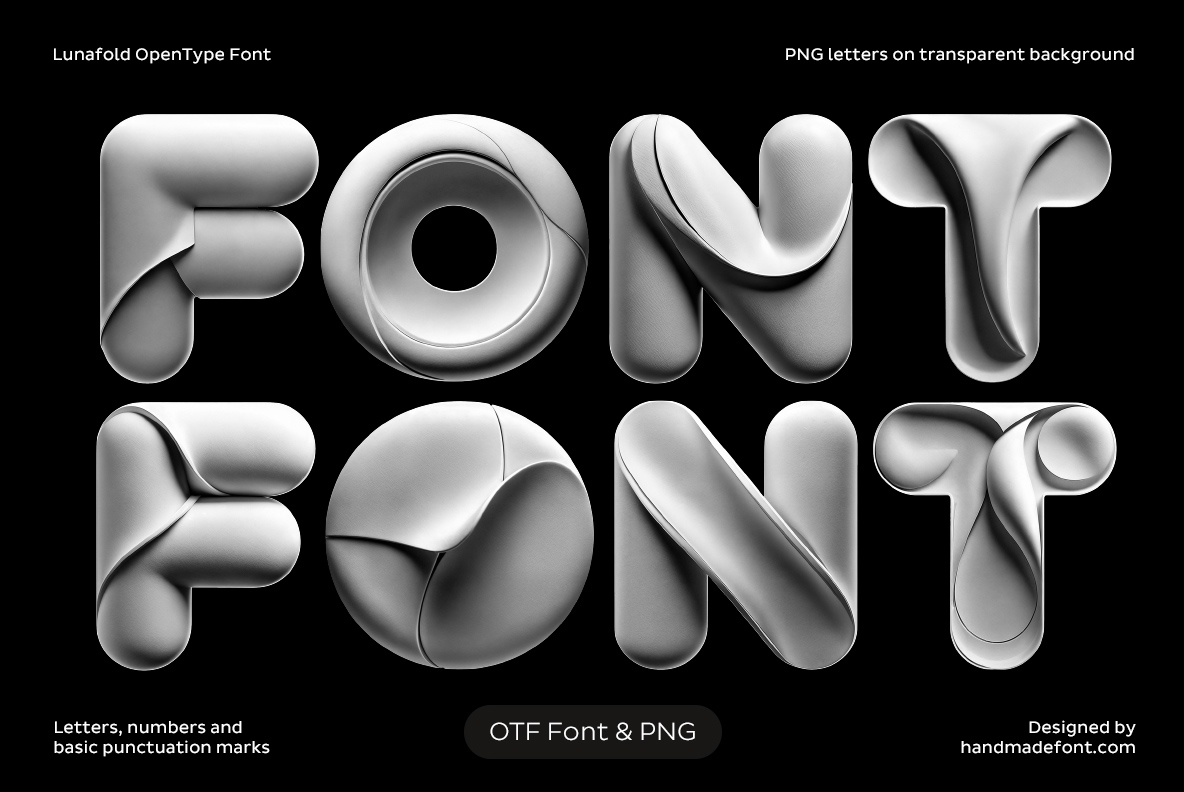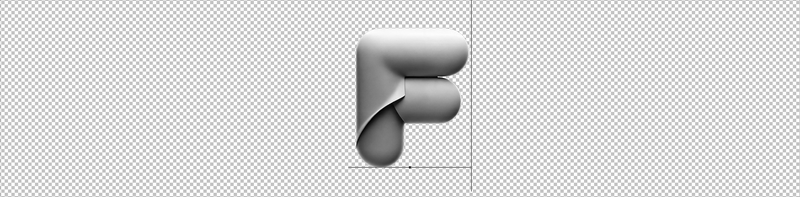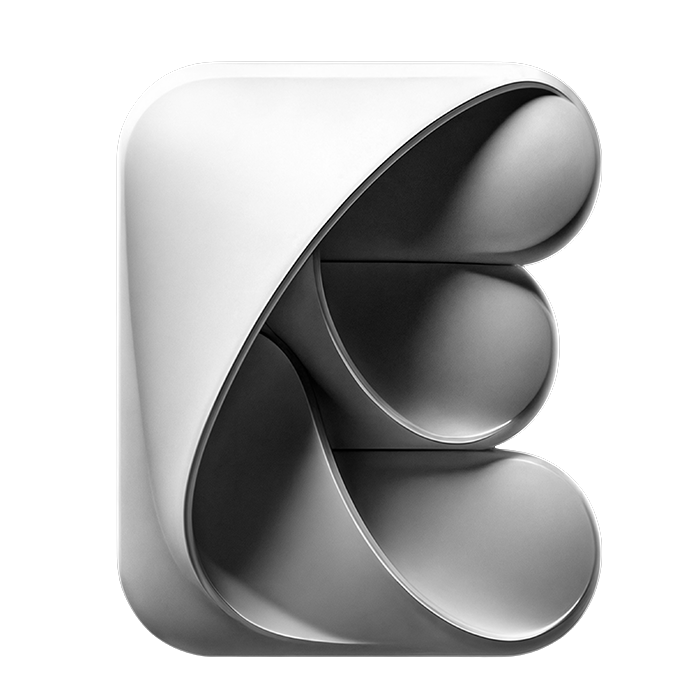
Lunafold Font — Where Typography Goes to the Moon and Comes Back Folded
Picture this: the future arrives, but instead of descending in a shiny silver spaceship, it tiptoes in wearing a perfectly tailored suit… made entirely of sculpted, folded metal. That’s the Lunafold Font. A typeface that looks like it could have been engineered by NASA in collaboration with a luxury fashion house. Smooth, curved, almost edible in its glossy softness, yet somehow still bold enough to make your design whisper: “Yes, I’m important — but also devastatingly good-looking.”
Lunafold isn’t just a font; it’s a mood. It’s the sort of typeface that would lounge casually on the cover of a high-end magazine while sipping an oat milk latte, yet still have the engineering chops to hold up the title credits of a sci-fi blockbuster. This is a letterform with both the body and the brains.
A Sculptural Experience
Every letter in Lunafold feels like it’s been hand-shaped from molten metal and cooled under a designer’s careful gaze. The curves fold in on themselves, as if they’ve been gently origami’d into place. Light catches the folds like a soft moonbeam glancing off silver fabric. It’s tactile without being heavy, futuristic without being alien, and luxurious without the ego.
This makes Lunafold perfect for projects that want to look like they’ve been dipped in style and rolled in innovation. Think: high-fashion branding, avant-garde packaging, premium editorial spreads, sleek tech launches, or that “I’m not just a brand, I’m an experience” type of campaign.